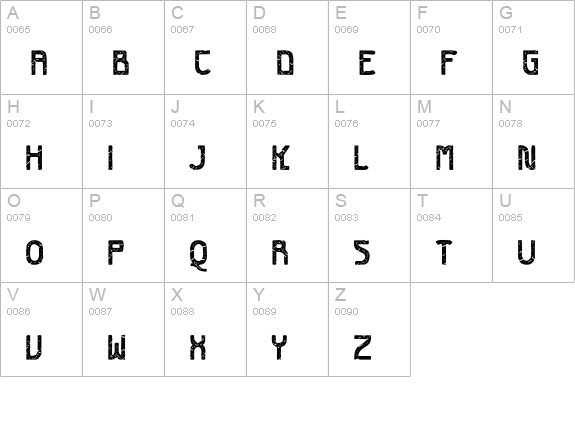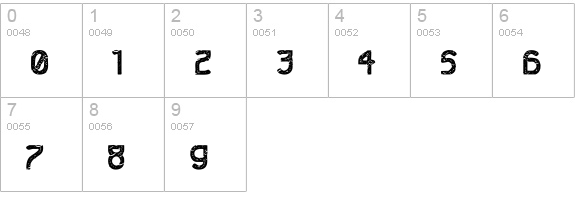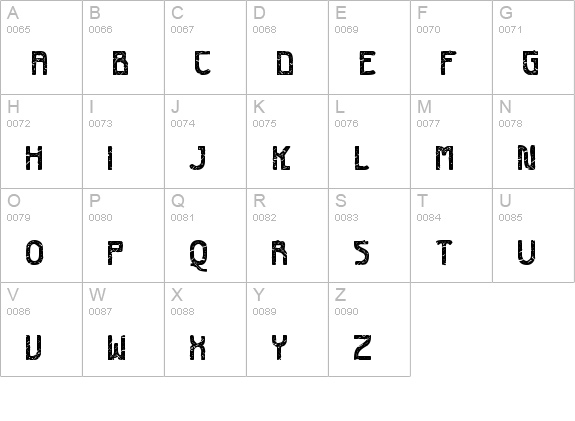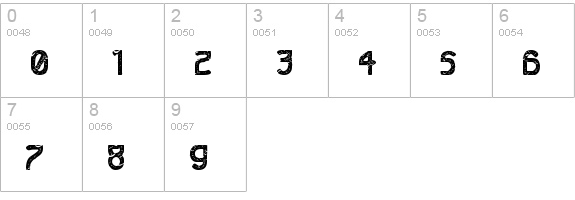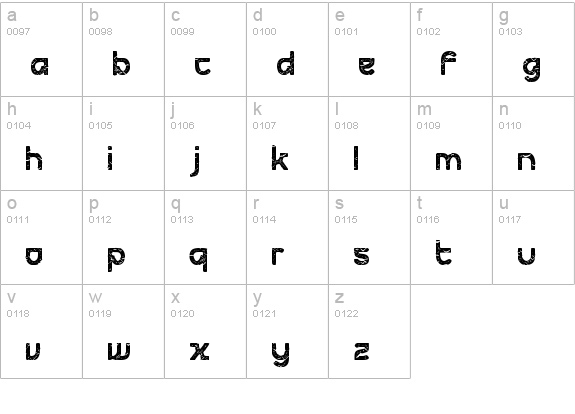
Futurex Apocalypse is a bold and edgy font that perfectly captures the essence of a post-apocalyptic world. With its sharp angles and futuristic design, this font is ideal for conveying a sense of chaos and destruction. Its unique style makes it stand out in any design project, from movie posters to book covers. What makes Futurex Apocalypse even more appealing is that it is available for free download at FontsMarket.com. This means that you can easily access this striking font and use it in your creative endeavors without any cost. So unleash your imagination and let Futurex Apocalypse add a touch of dystopian flair to your designs today.